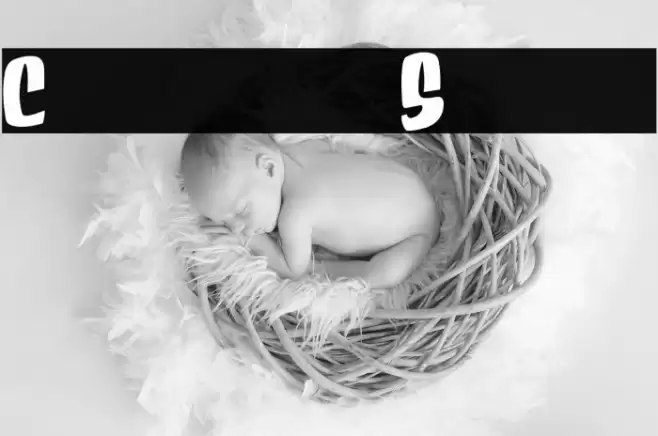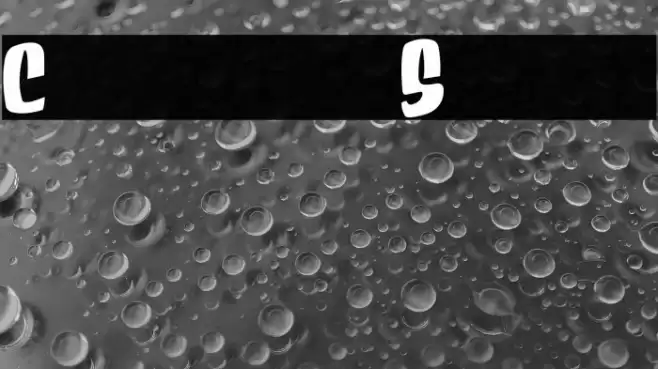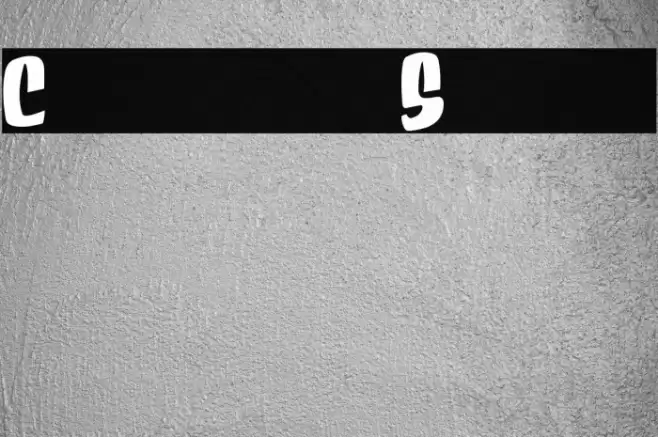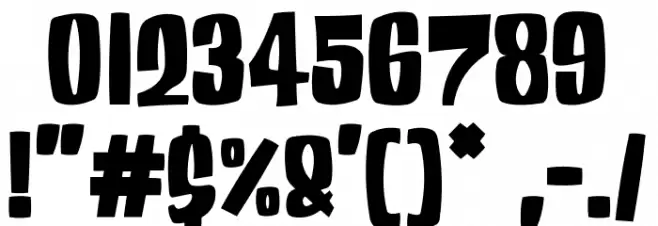
Charming Sixties Font
Charming Sixties Description
This font exudes a playful and retro vibe reminiscent of the 1960s. The characters are bold and rounded, with a slightly irregular and whimsical appearance that adds to its charm. The uppercase and lowercase letters maintain a consistent style, with exaggerated curves and a sense of movement. The numbers and special characters follow the same design ethos, ensuring a cohesive look across all glyphs. This font is perfect for capturing a nostalgic feel, making it ideal for projects that aim to evoke a sense of fun and creativity. Its unique style makes it stand out, while still being legible and versatile.
A bold, playful font with a retro 1960s vibe and rounded, whimsical characters from Regular fonts.
- Font: Charming Sixties
- Proposed Projects: Ideal for vintage-themed posters, playful branding, children's books, and retro-inspired designs.
- Overall Style: Vintage